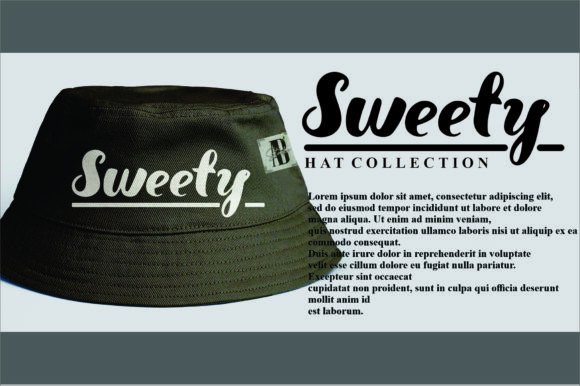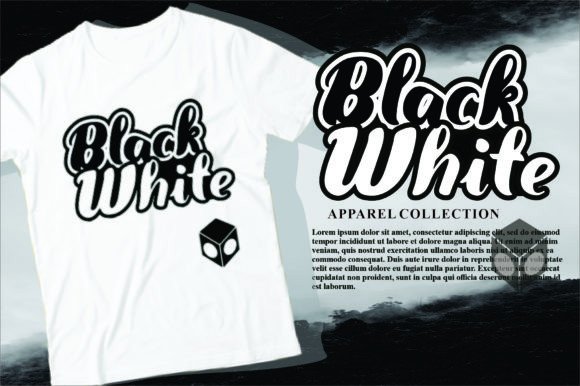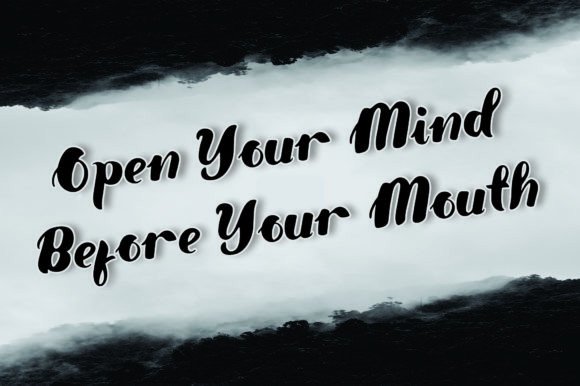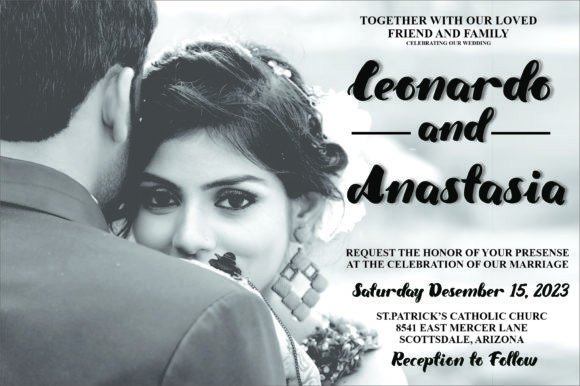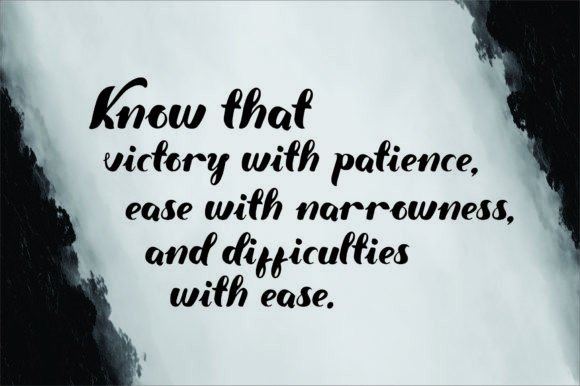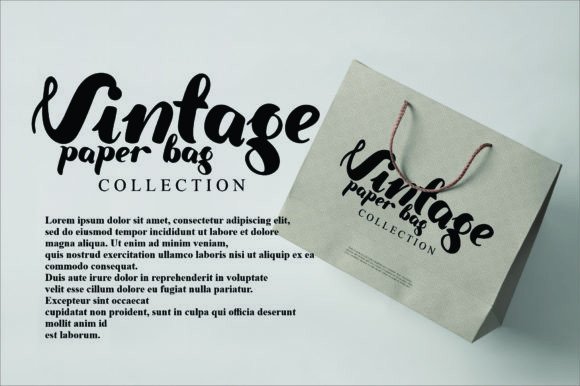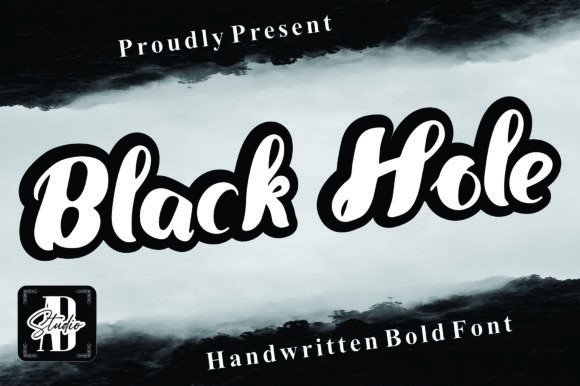
Introducing Black Hole Font: Elevate Your Designs with Elegance
In the vast universe of typography, a new star has emerged – the Black Hole Font. This bold, elegant handwritten font is set to revolutionize the way you approach design, offering a perfect blend of style and readability. With its meticulously crafted kerning, Black Hole Font is poised to become your go-to choice for a wide array of creative projects.
The Essence of Black Hole Font
Black Hole Font is not just any font; it’s an expertly designed typeface that brings a touch of sophistication to any design. Its bold and elegant appearance makes it stand out, while its neat kerning ensures that your text remains clear and easy to read. Whether you’re working on apparel branding, daily quotes, tote or handbag branding, product packaging, headers, posters, merchandise, wedding invitations, or social media content, Black Hole Font is the perfect companion.
Unleash Your Creativity
With Black Hole Font, the possibilities are endless. Imagine being able to create stunning apparel designs that grab attention, elegant wedding invitations that set the tone for a perfect day, or impactful social media posts that resonate with your audience. This font’s versatility means you can use it across various platforms and projects, making it a valuable addition to your design toolkit.
Why Choose Black Hole Font?
- Bold and Elegant: Make a statement with a font that exudes confidence and sophistication.
- Neat Kerning: Enjoy seamless readability, ensuring your message is conveyed clearly.
- Versatile: Suitable for a wide range of projects, from digital content to print materials.
- Easy to Use: Designed to be user-friendly, making it accessible for designers of all levels.
Applications of Black Hole Font
The applications of Black Hole Font are vast and varied. Here are a few ideas to get you started:
- Apparel Branding: Create eye-catching t-shirt designs, hoodies, and more that stand out.
- Digital Content: Elevate your blog posts, social media updates, and website headers with a touch of elegance.
- Print Materials: Design stunning posters, flyers, and brochures that capture attention.
- Wedding and Event Planning: Add a personal touch to your wedding invitations, save-the-date cards, and event banners.
- Product Packaging: Stand out on store shelves with beautifully designed packaging.
Tips for Using Black Hole Font
To get the most out of Black Hole Font, consider the following tips:
- Mix and Match: Combine Black Hole Font with other fonts to create a unique visual hierarchy.
- Play with Sizes: Use varying font sizes to emphasize key points and create visual interest.
- Experiment with Colors: While the font itself is bold, experimenting with different colors can further enhance your design.
Black Hole Font is more than just a typeface; it’s a design solution that can elevate your projects to new heights. Its elegant appearance, combined with its readability and versatility, makes it an indispensable tool for designers and crafters alike. Whether you’re looking to make a bold statement or add a touch of sophistication to your designs, Black Hole Font is the perfect choice. So why wait? Dive into the world of Black Hole Font today and discover a universe of creative possibilities.